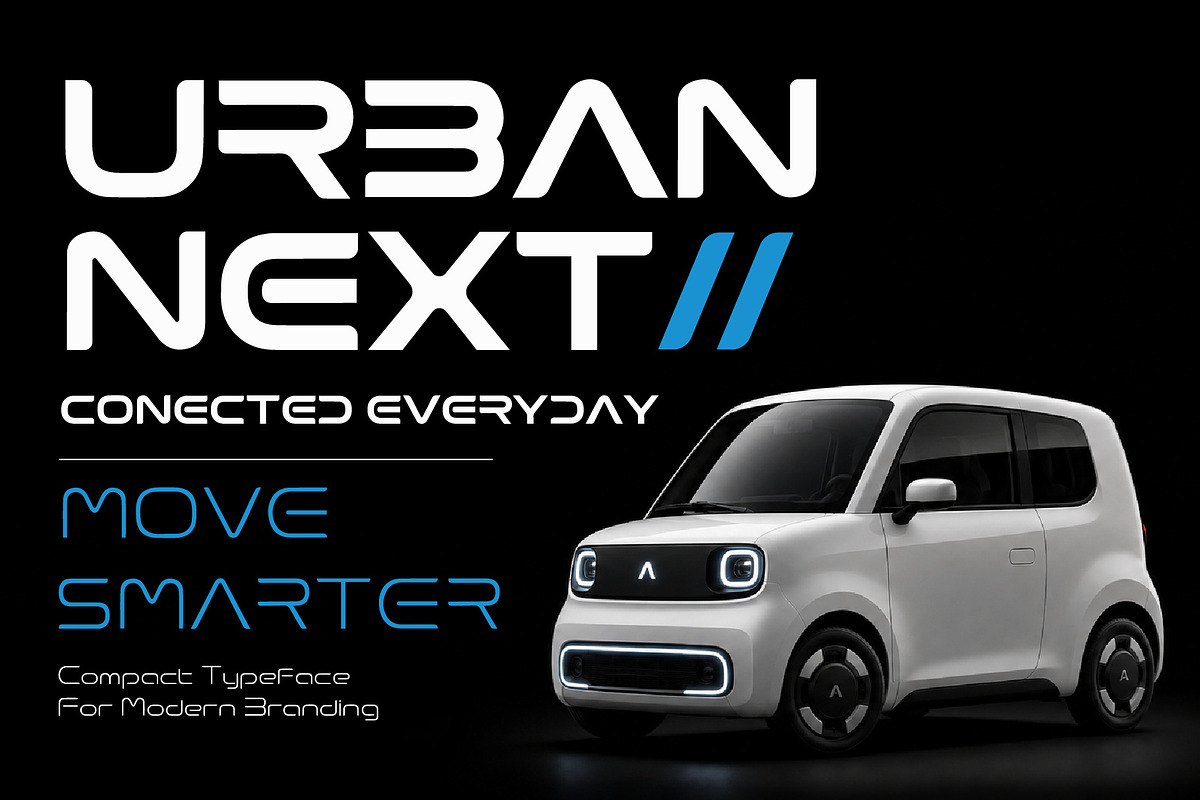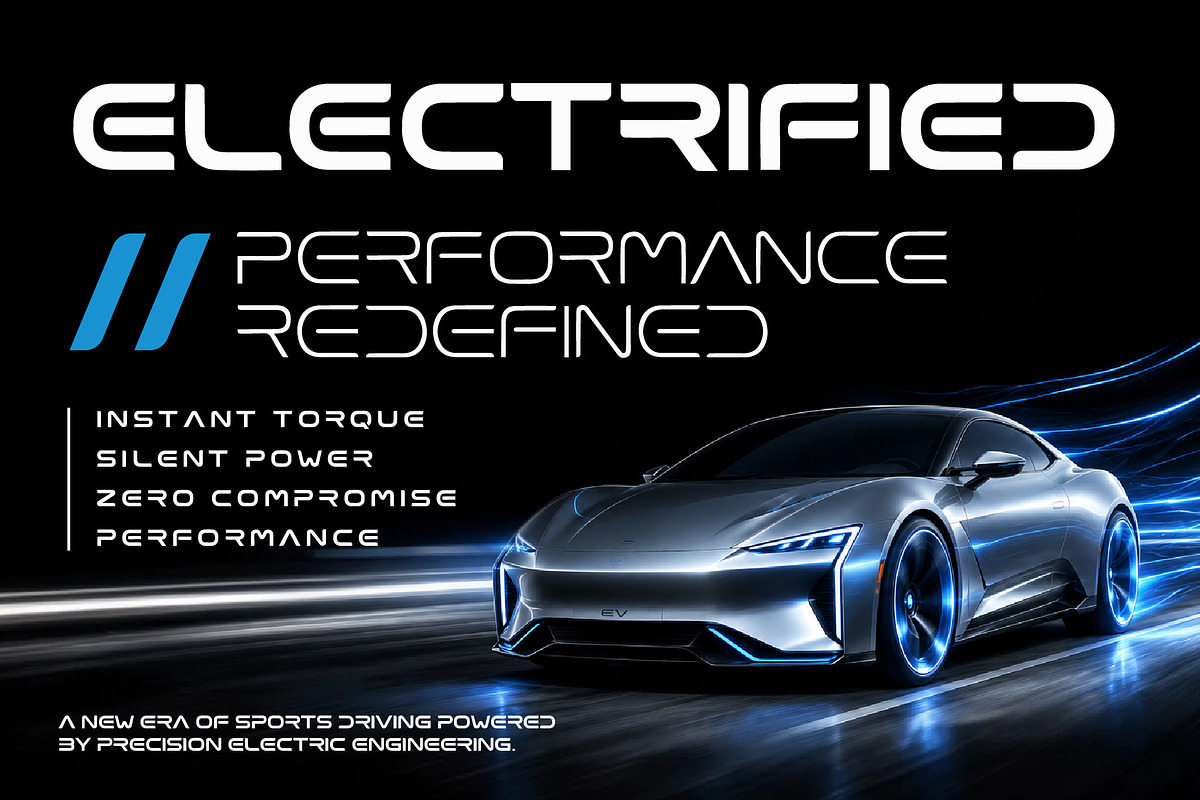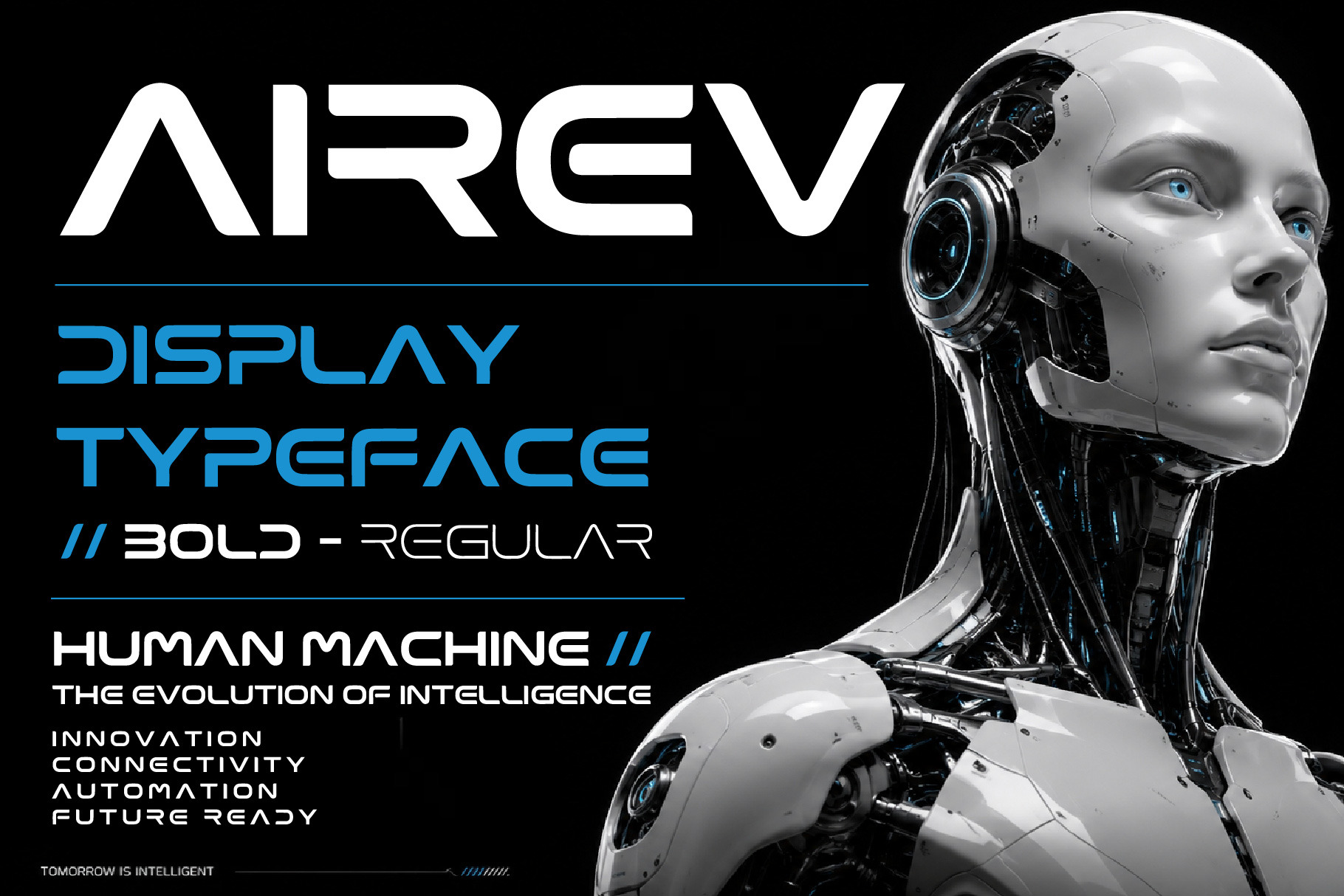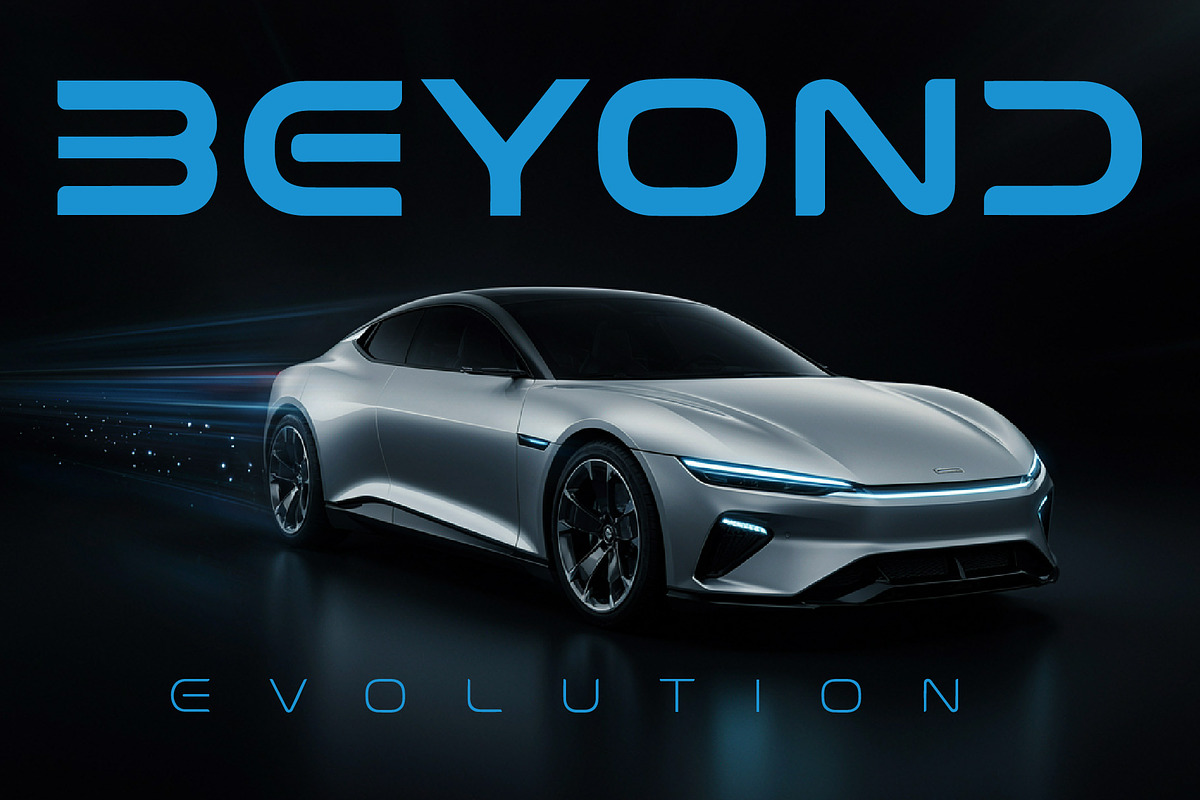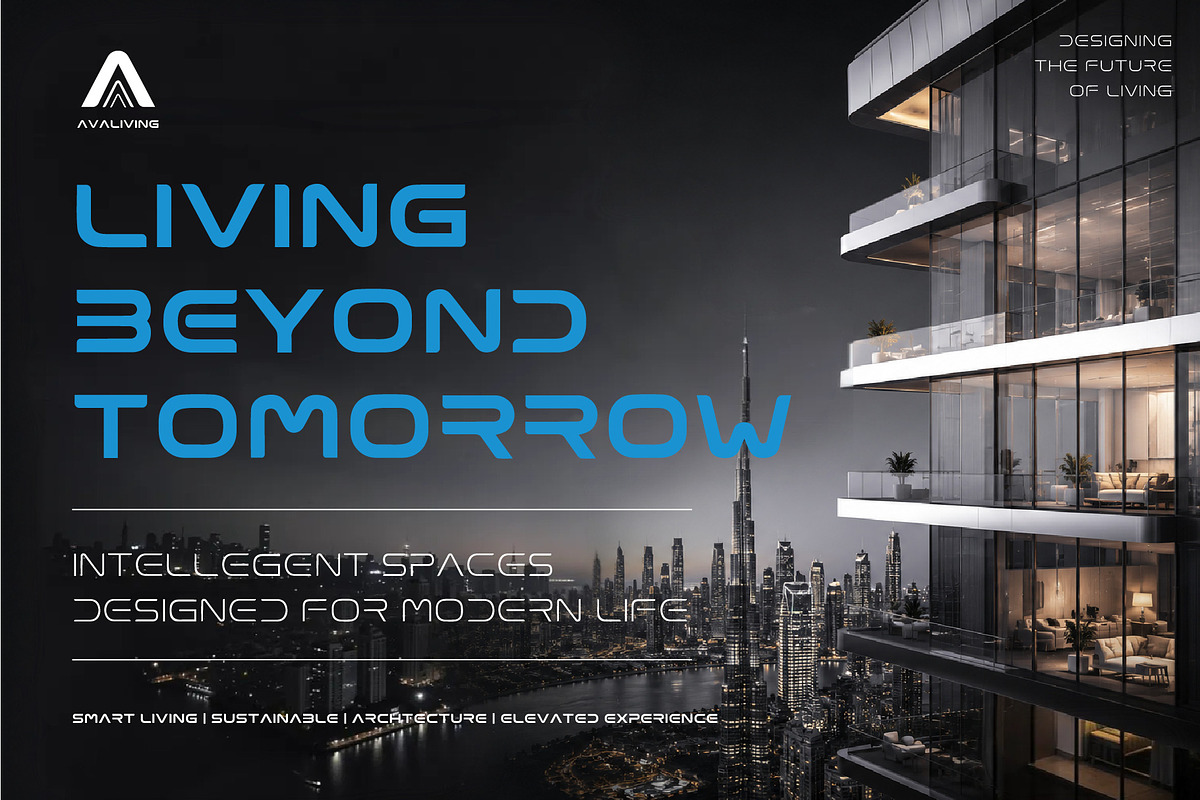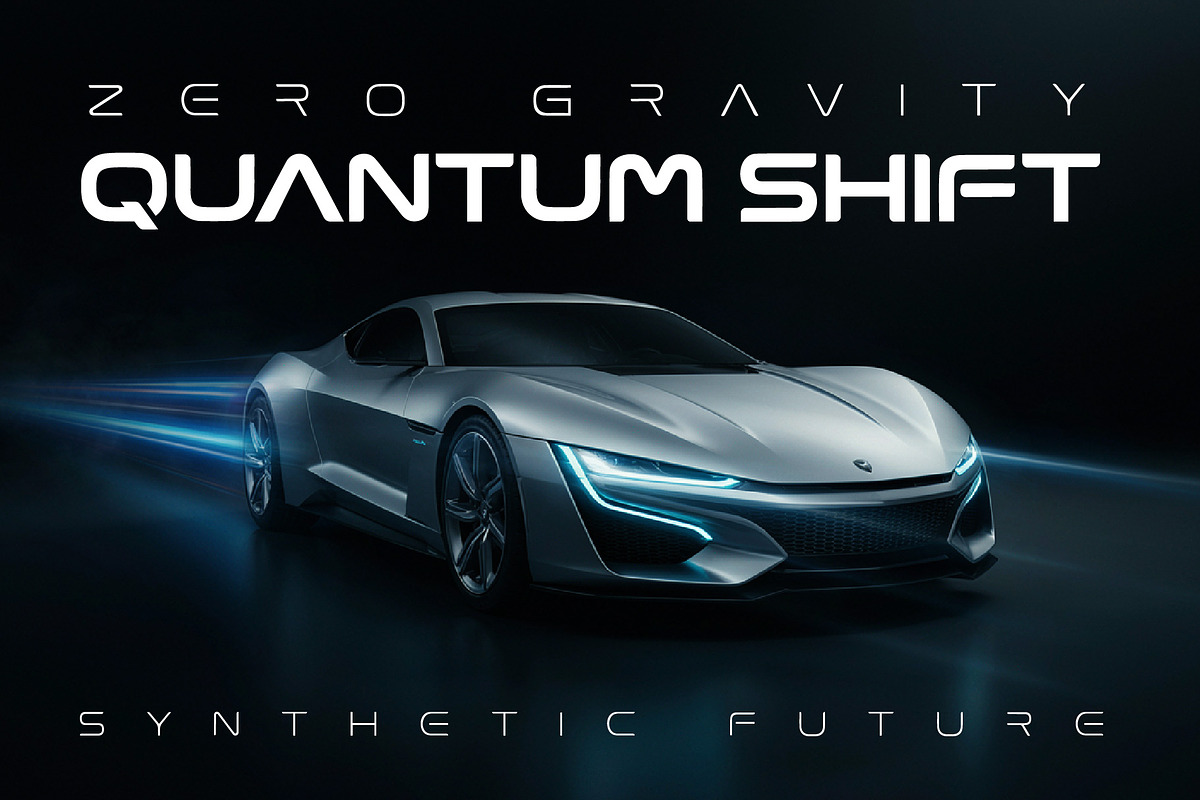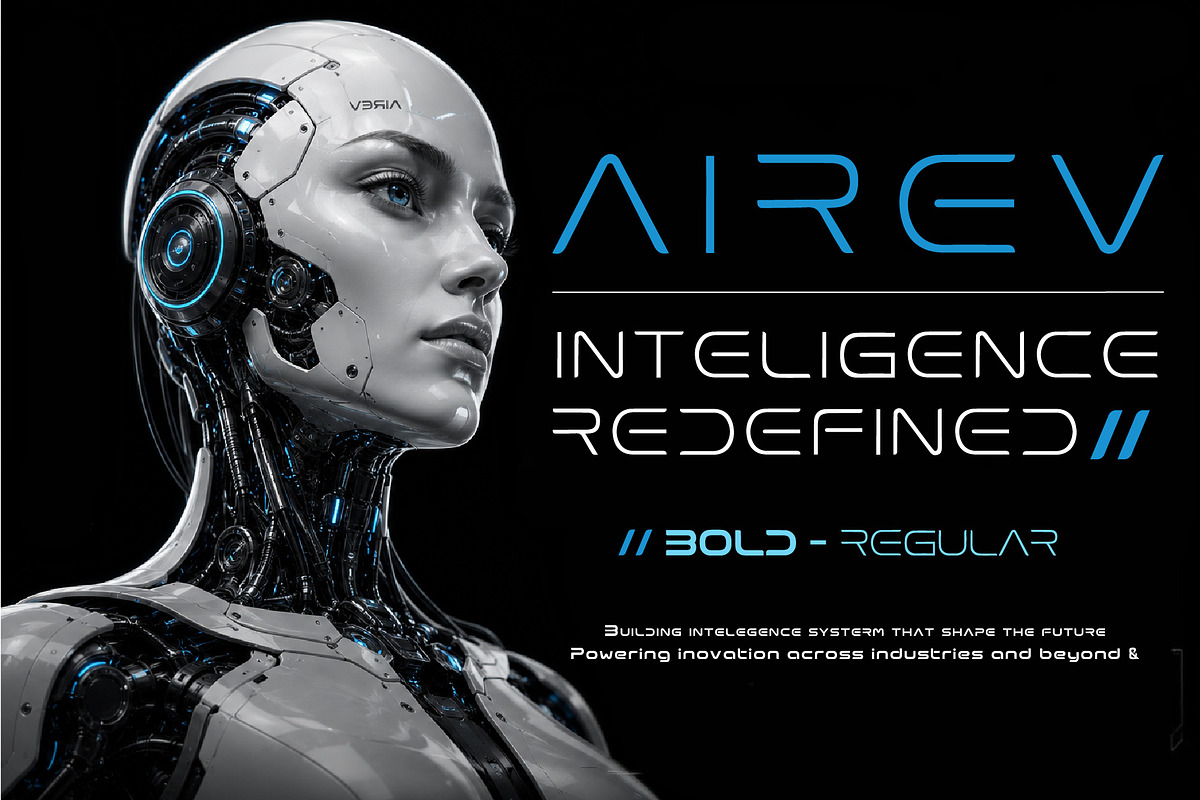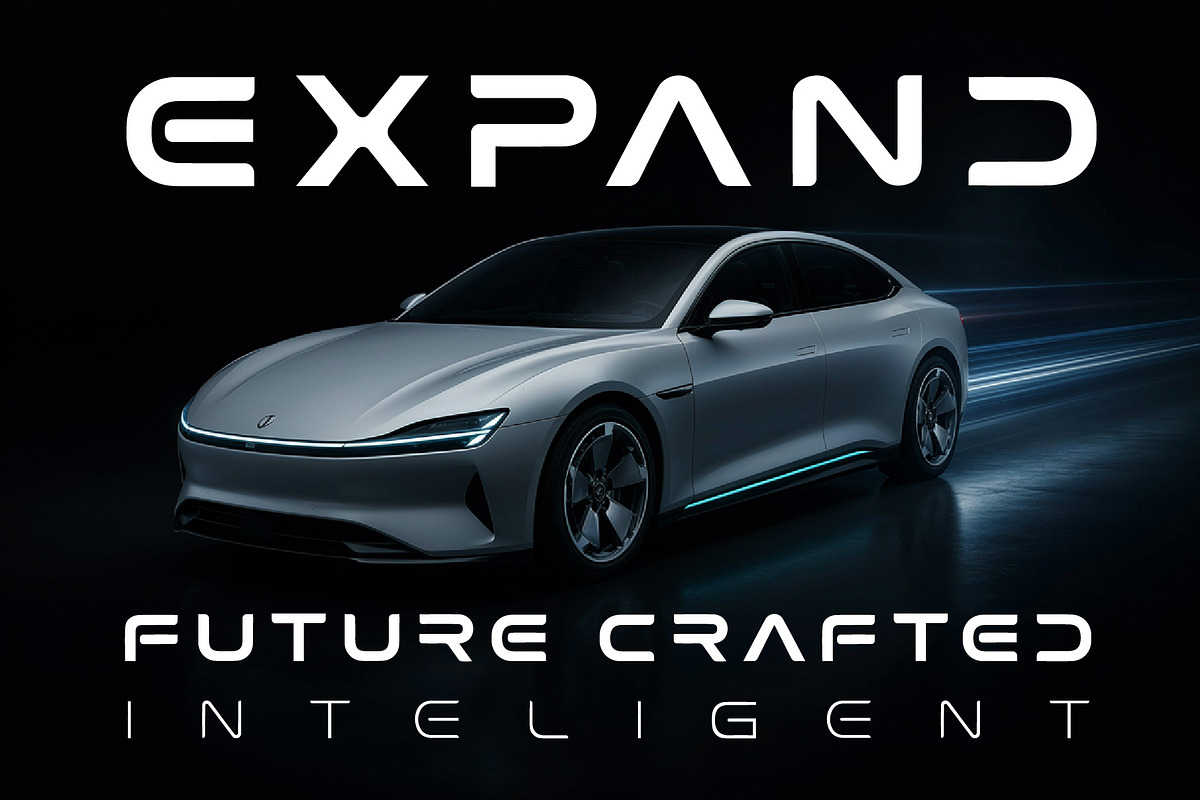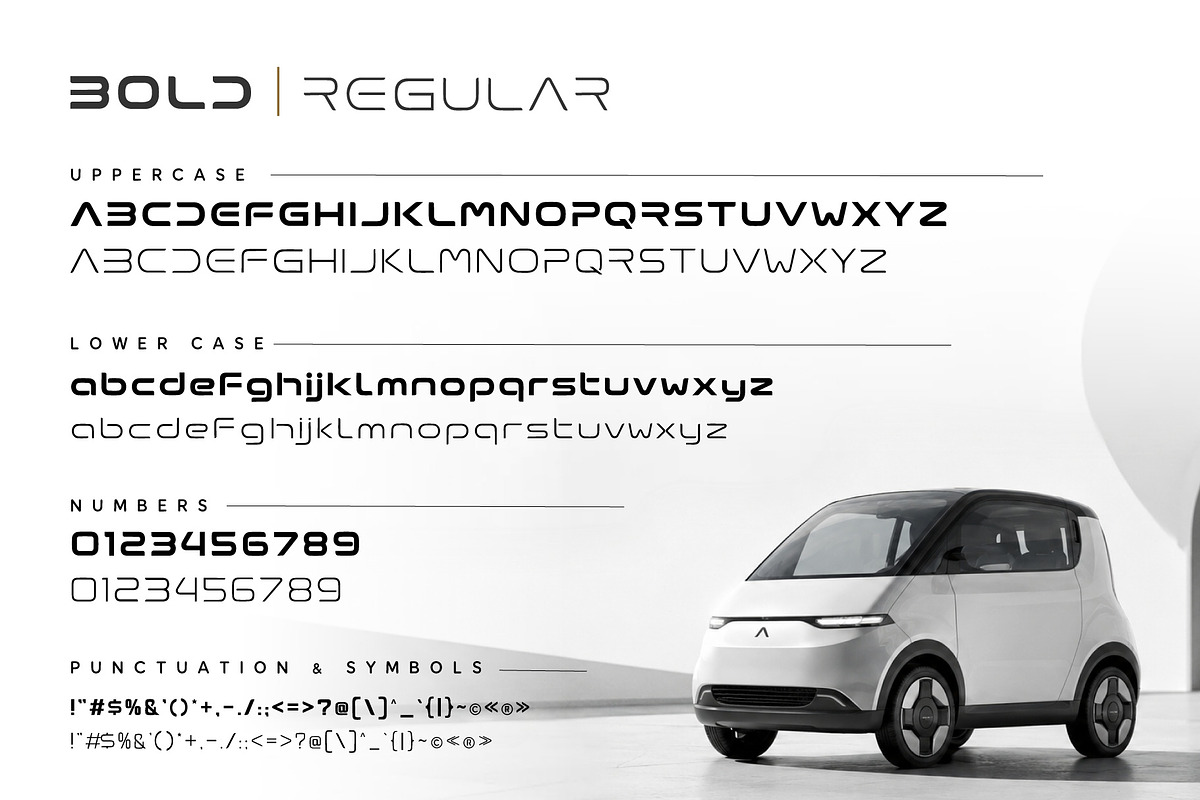
AIREV – Futuristic Display Typeface
AIREV – Futuristic Display Typeface Elevate your brand with AIREV, a modern typeface crafted for electric vehicle, aero, and tech-inspired design projects. Built with clean geometry and sharp precision, it delivers a strong futuristic presence for high-impact visual identity systems.
Perfect for logos, posters, branding, UI design, editorial layouts, advertising, and motion graphics. Whether you're designing for automotive innovation or next-gen technology concepts, AIREV brings a bold and forward-thinking aesthetic to every application.